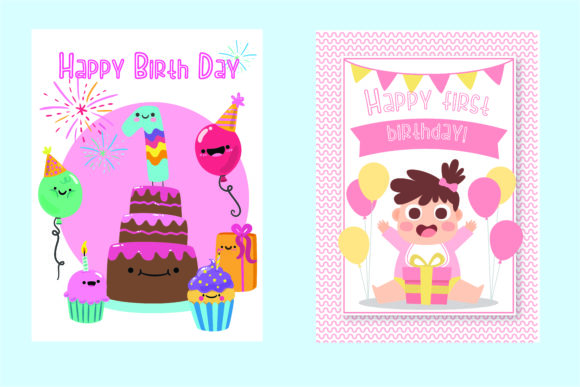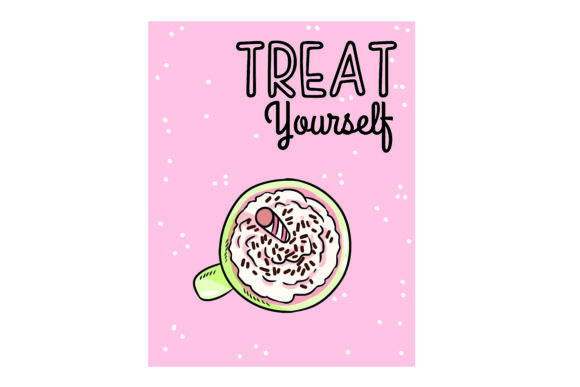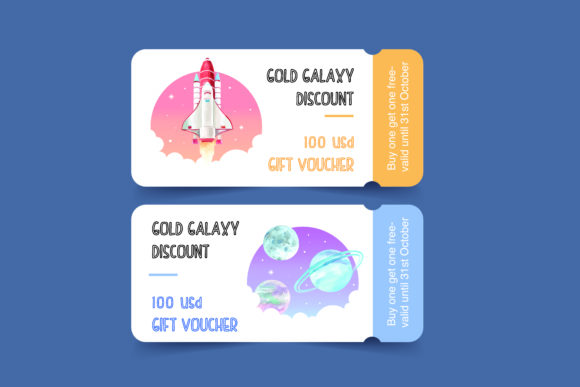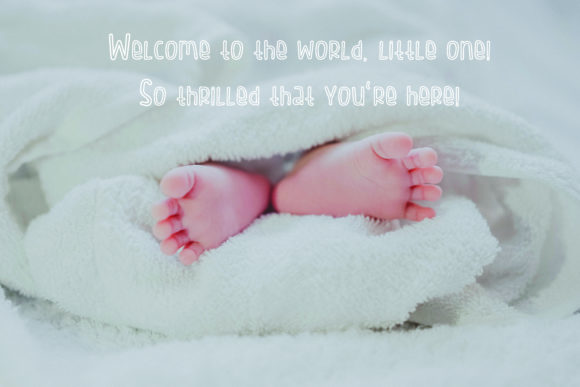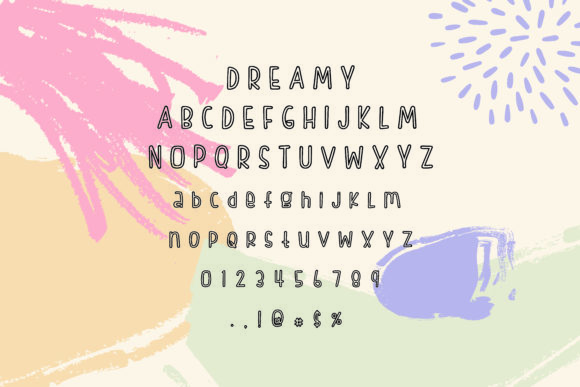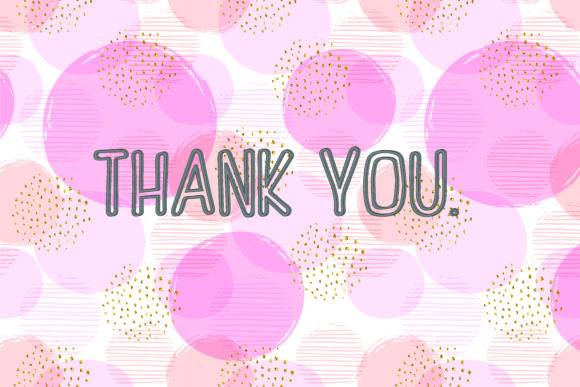
Dreamy Font
About Dreamy Font
Dreamy is an incredibly romantic and inspirational script font that feels both whimsical and elegant. Fall in love with its cute charm!